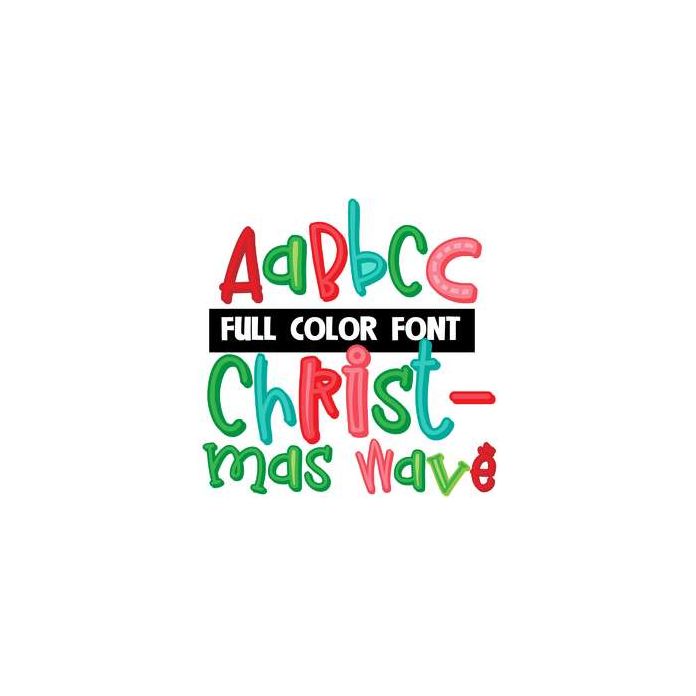
This full-color font features a traditional Christmas color palette with whimsical lettering. This font works best for titles, displays, posters and more. Please note color fonts will show as black in non compatible programs. This font type is compatible with Silhouette Studio.